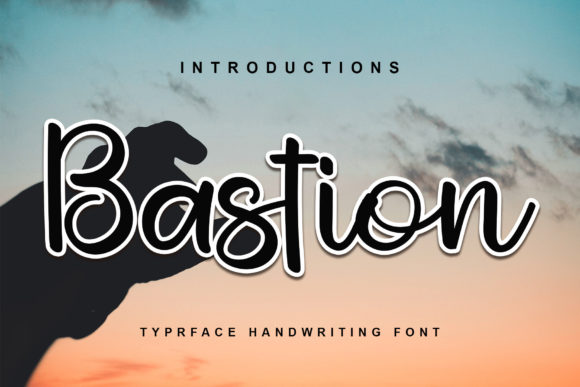
About Bastion Font
Bastion is a sweet handwritten font made with great care to produce the expected outcomes. It is perfect for any branding project such as logos, t-shirt printing, creative products, and more. It will look extraordinary in a variety of contexts.